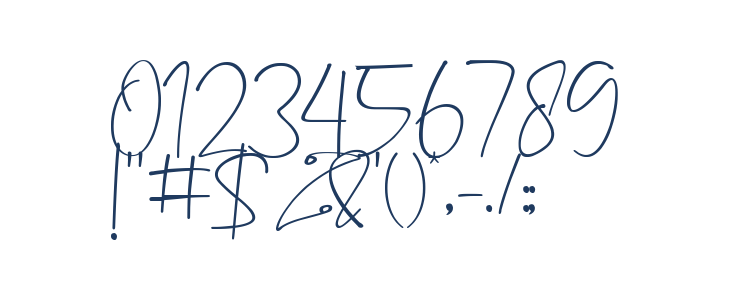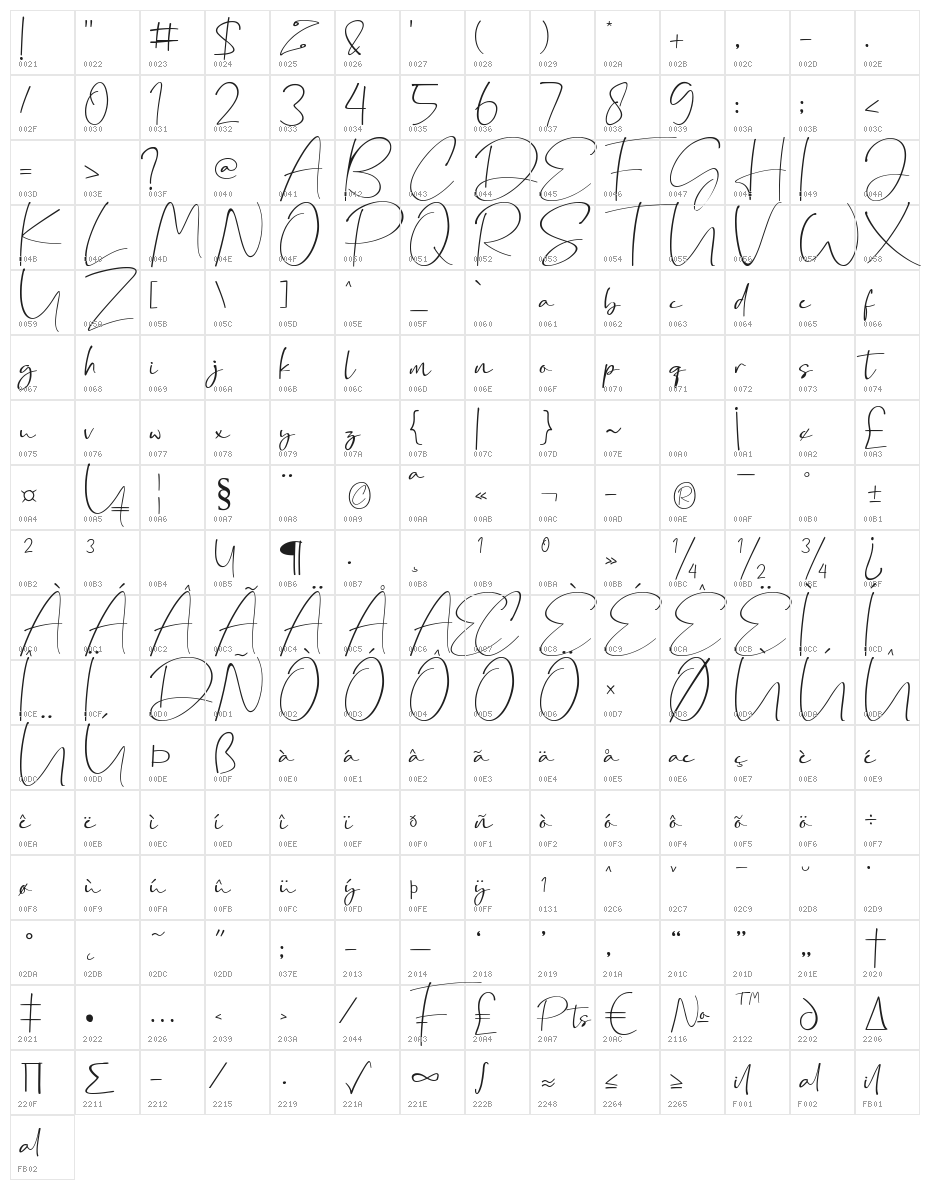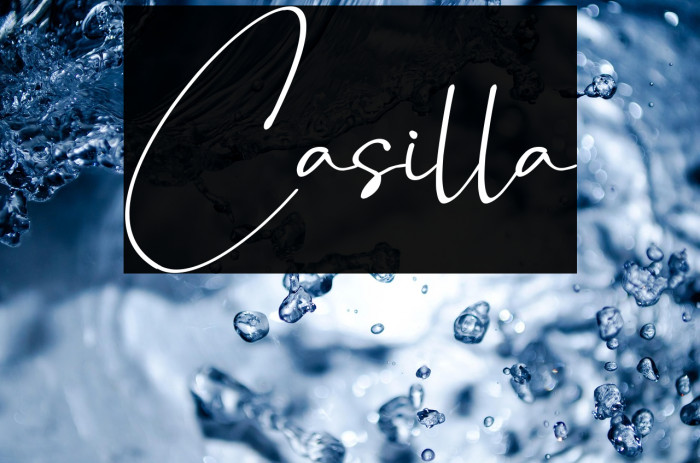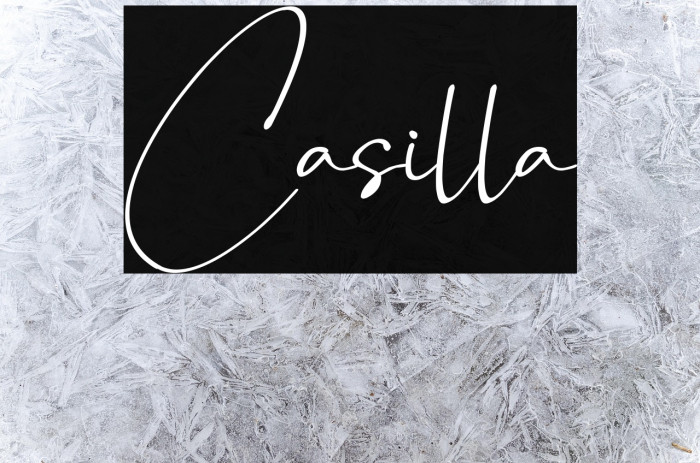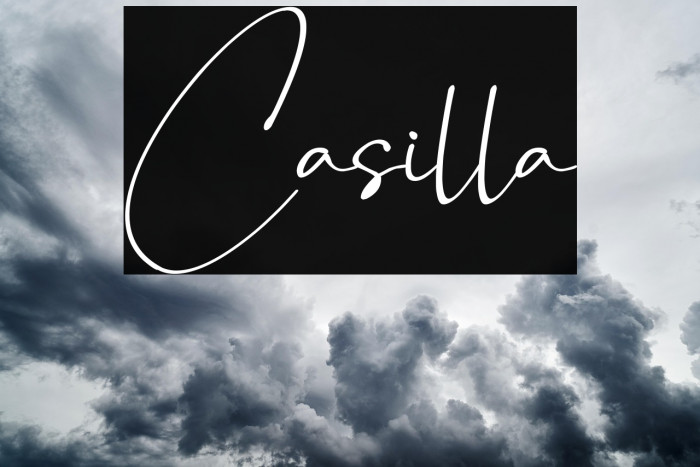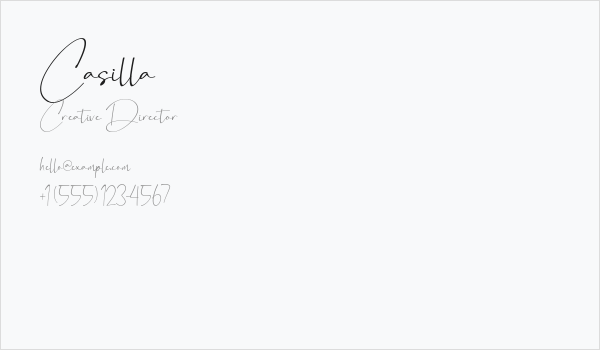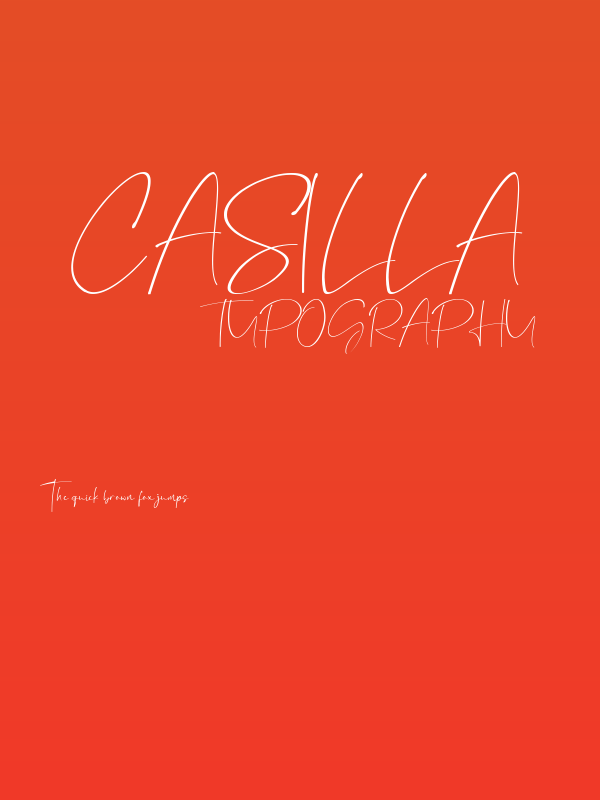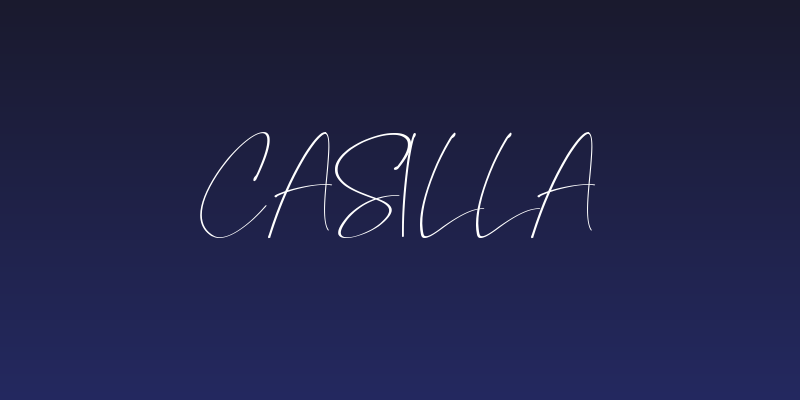
Casilla Font
Casilla Description
This font features a dynamic and expressive handwritten style, characterized by its fluid and organic strokes. The uppercase letters are tall and slender, with a slight slant that adds a sense of motion and elegance. The lowercase letters maintain a consistent flow, with some characters extending below the baseline, enhancing the handwritten feel. The numerals are distinct and maintain the same fluidity, making them easily readable. Special characters are integrated seamlessly, maintaining the overall aesthetic. This font's unique style makes it suitable for creative and artistic projects.